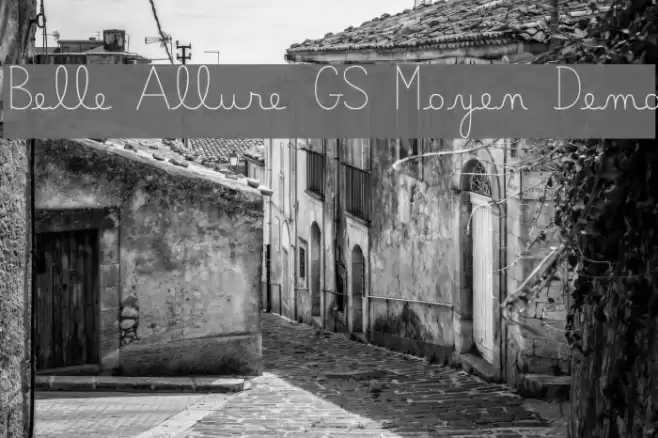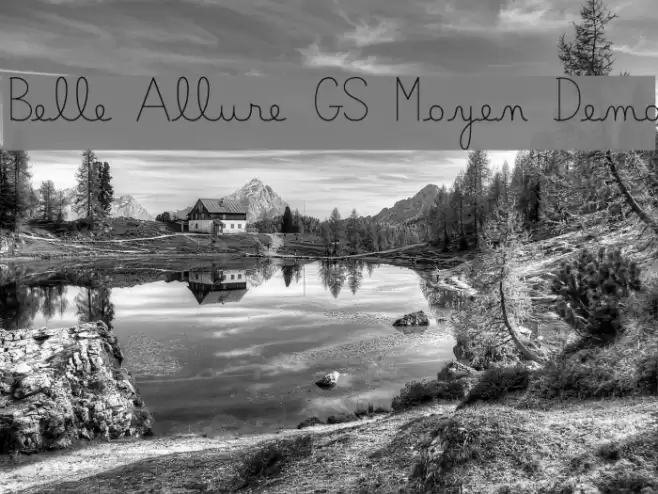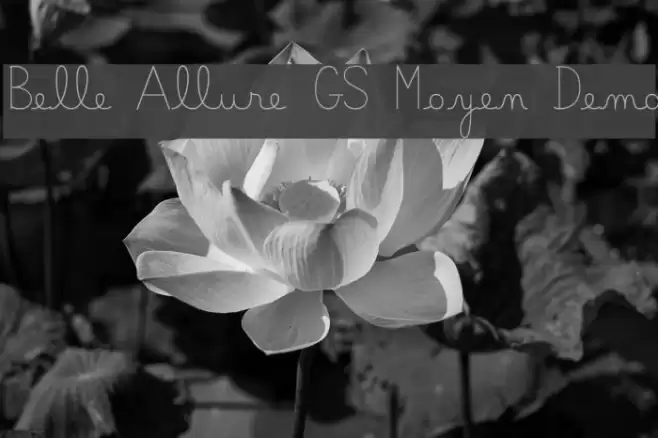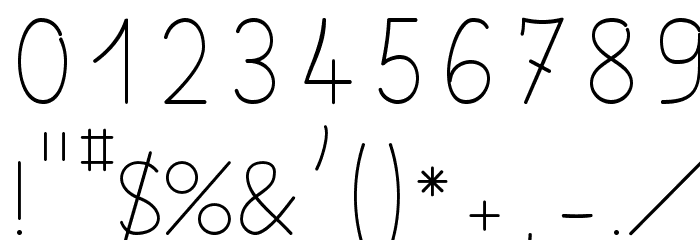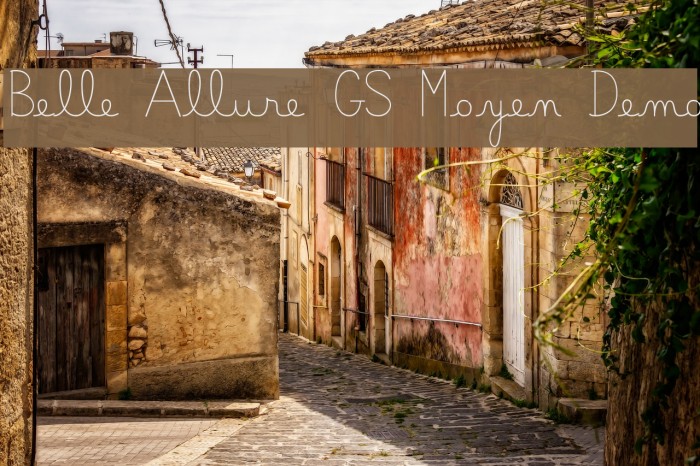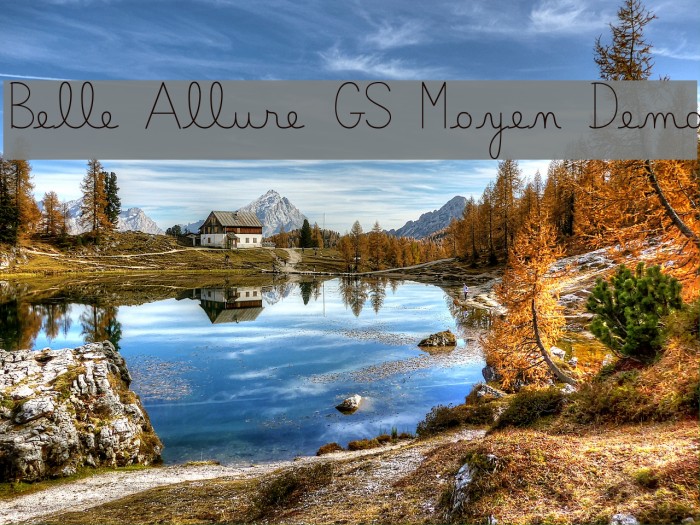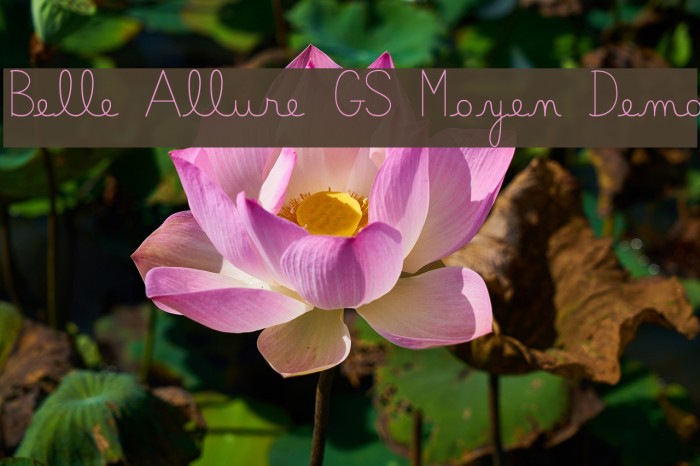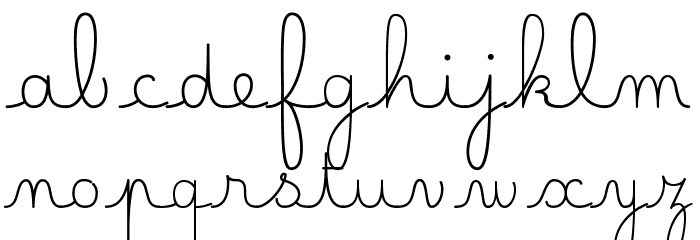
Belle Allure GS Moyen Demo Font
Belle Allure GS Moyen Demo Description
This font features a delicate and elegant design, characterized by its thin, clean lines and a subtle, handwritten touch. The uppercase letters are tall and slender, giving a sense of sophistication and modernity. The lowercase letters exhibit a playful, cursive style, adding a personal and artistic flair. Numbers and special characters maintain the same thin and airy quality, ensuring consistency throughout. The overall appearance is light and airy, making it suitable for projects that require a touch of elegance and simplicity.
A thin, elegant font with a mix of modern and handwritten styles from Script fonts.
- Proposed Projects: Ideal for wedding invitations, greeting cards, personal branding, and elegant packaging designs.
- Use Case: Logos, Invitations, Decorative text